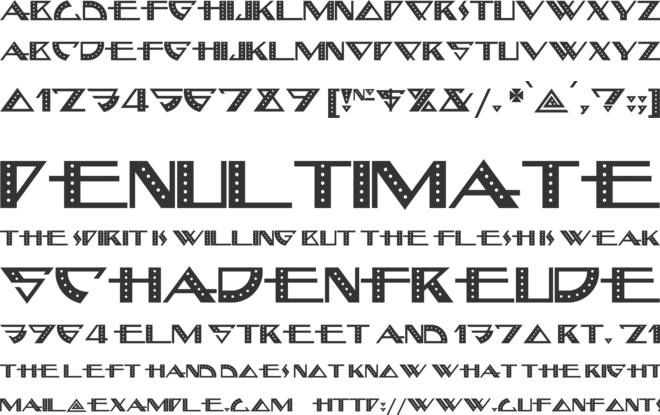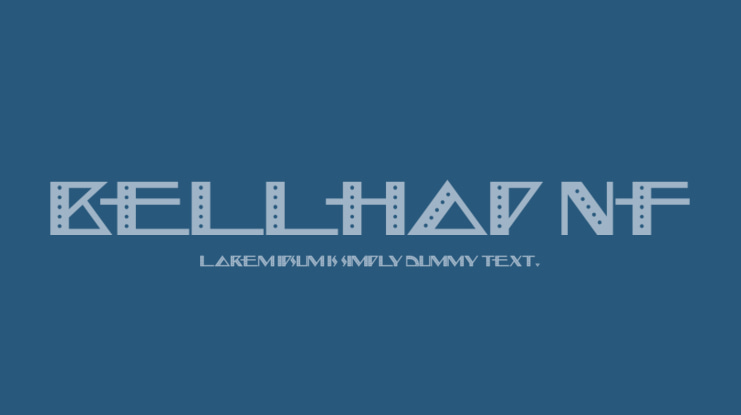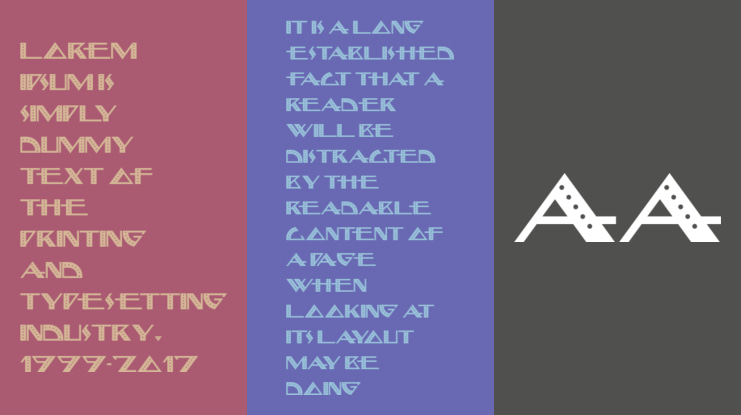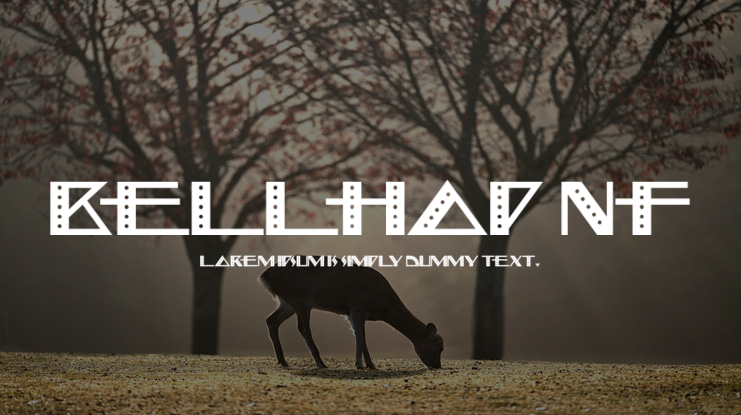
Bellhop NF Font
Nick Curtis
A 1930s luggage tag from New York’s Hotel Victoria provided the clues for constructing this unusual, geometric face. The bellboy dingbats, from the same label, are also included in the font as brackets.